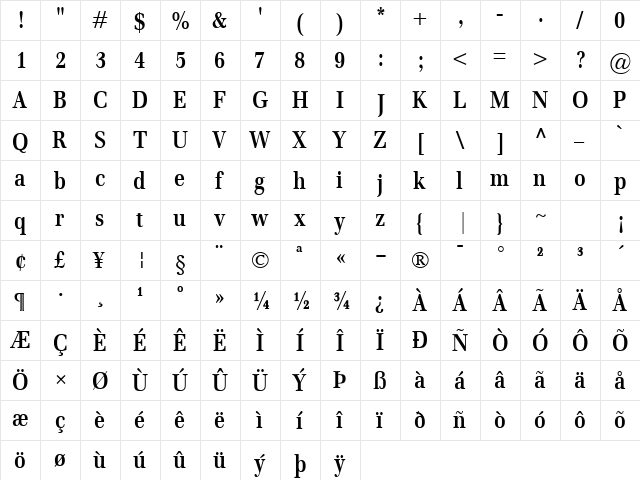
Emona Cond Bold Font Preview
Emona Cond Bold
Design Context for Emona Cond Typeface
Emona Cond takes a measured approach to typography — its balanced proportions and neutral character make it a reliable workhorse for both digital and print work. Its bold stroke weight gives it real presence on the page. Its narrow stance lets it pack a punch even in space-constrained designs.